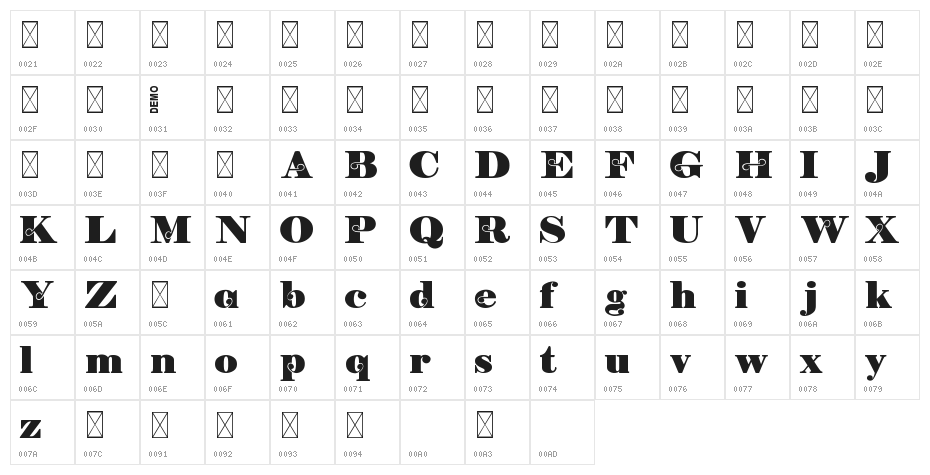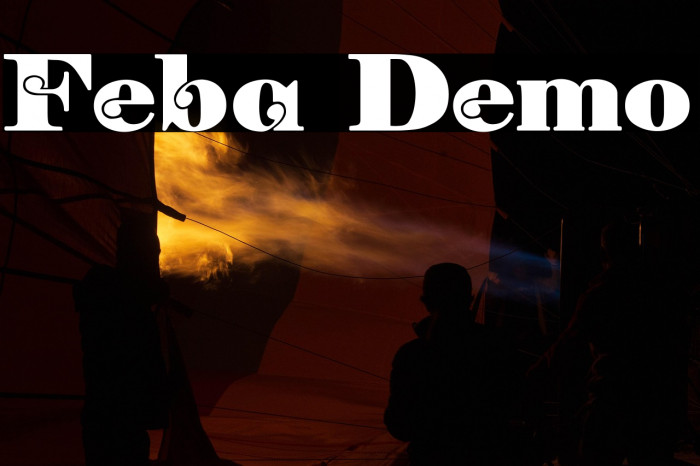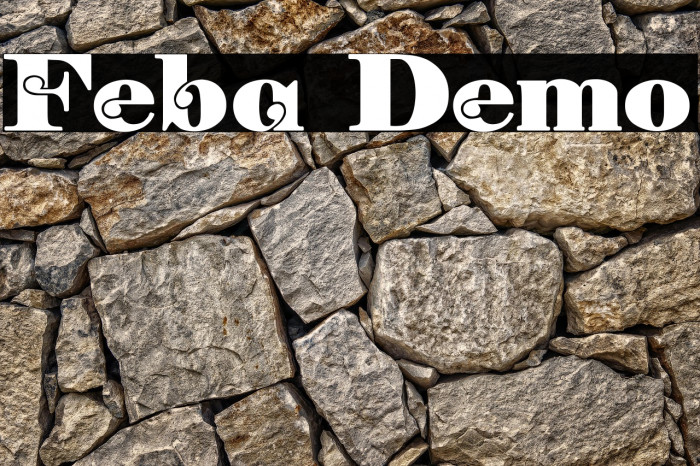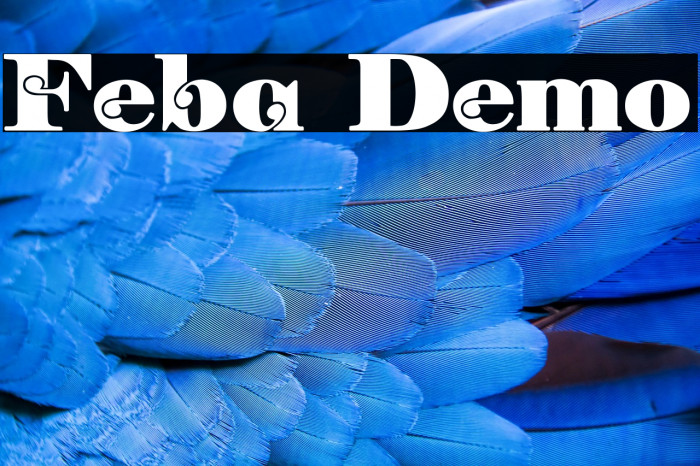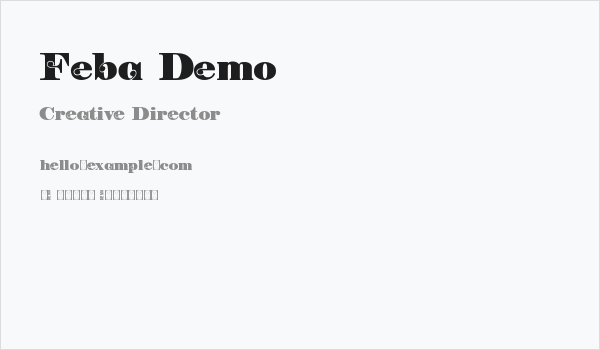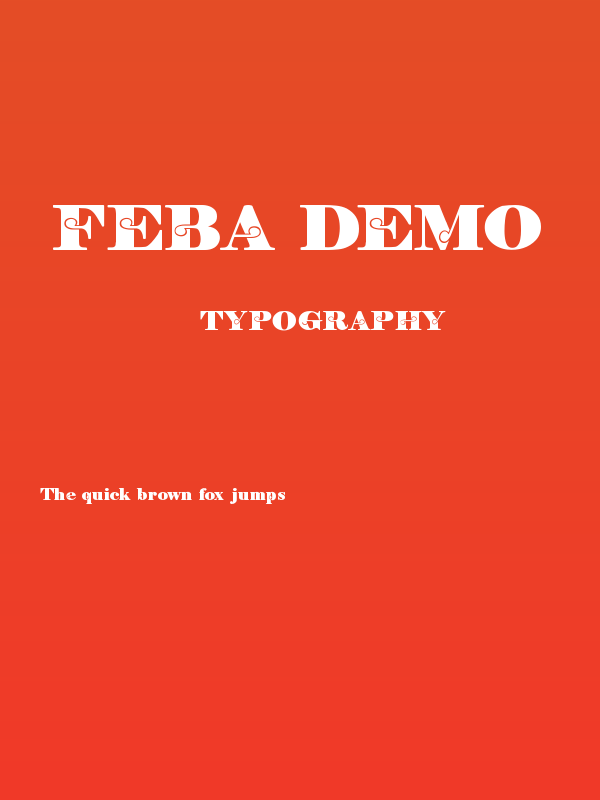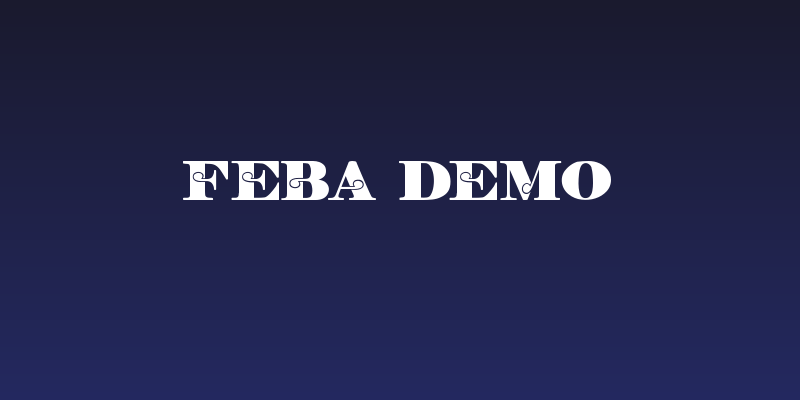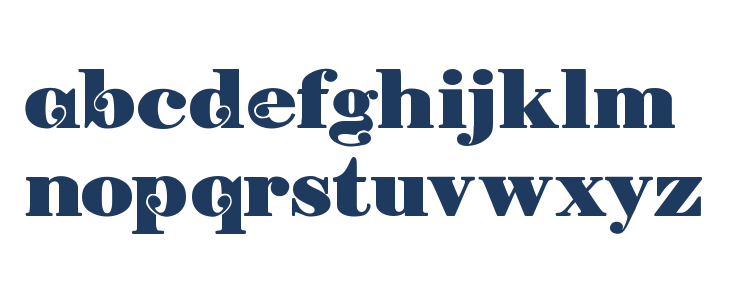
Feba Demo Font
Feba Demo Description
This font exhibits a bold and striking appearance, characterized by thick, heavy strokes and pronounced serifs. The uppercase letters are particularly robust, with a strong presence that commands attention. The lowercase letters maintain a consistent weight, providing a harmonious balance between the two cases. The overall design is reminiscent of classic serif fonts, yet it incorporates modern elements that add a unique flair. The characters are well-defined, with a slight contrast in stroke thickness that enhances readability. This font is ideal for making a bold statement in any design project.
| Proposed Projects | Ideal for headlines, posters, branding, and any design requiring a strong visual impact. |